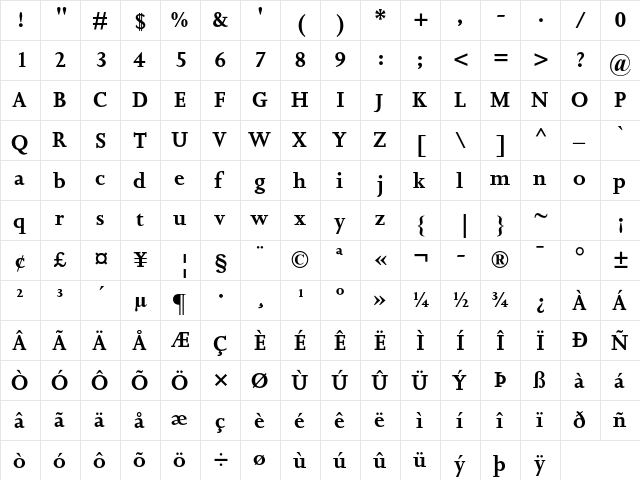
Joanna MT Std Bold
| Designer | Eric Gill |
Design Context for Joanna MT Std Typeface
Joanna MT Std offers clean, dependable letterforms without strong stylistic allegiance, making it a practical choice for designers who need flexibility. The heavy weight commands attention and anchors typographic hierarchies.